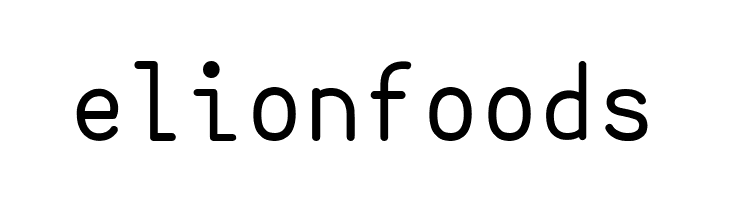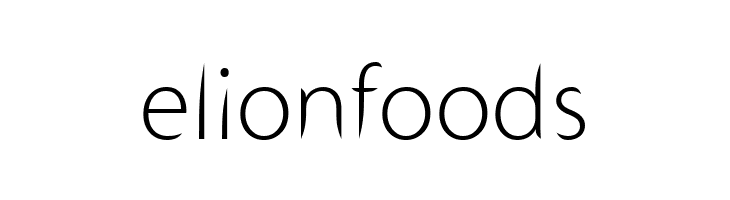
A bold, rounded serif font with a classic yet approachable style.
A modern, geometric font with clean, rounded edges and a minimalist style.
A modern, geometric font with bold, rounded characters.
A bold, italic font with a modern and clean design.
A modern, rounded sans-serif font with uniform width and smooth lines.
A modern, rounded font with clean lines and balanced proportions.
A modern, light sans-serif font with clean lines and balanced proportions.
A bold, modern sans-serif font with clean lines and balanced proportions.
A modern, geometric sans-serif font with rounded characters and uniform stroke width.
A modern, expanded sans-serif font with smooth curves and a bold presence.
A modern sans-serif font with clean lines and balanced proportions.
A bold, modern sans-serif font with clean lines and excellent readability.
A modern, minimalist font with clean lines and consistent stroke width.
A sleek, modern font with a geometric and minimalistic design.
A modern, clean sans-serif font with balanced spacing and consistent stroke width.
A bold, modern sans-serif font with excellent readability.